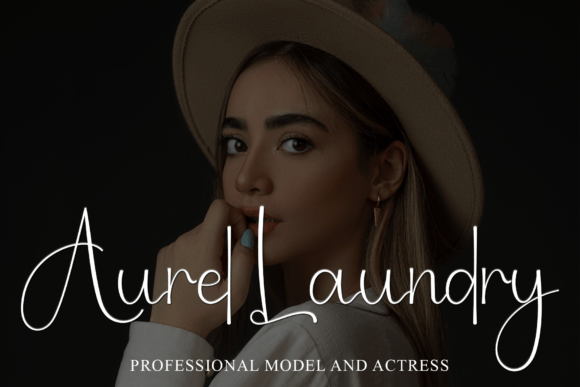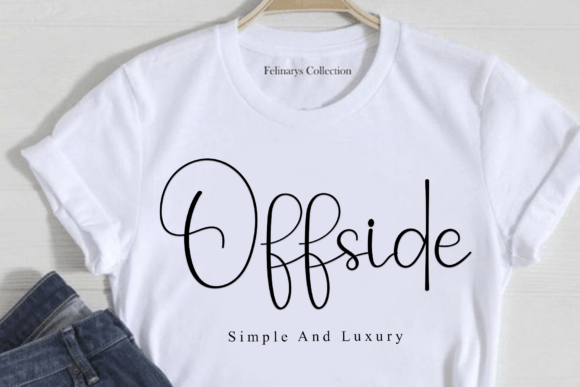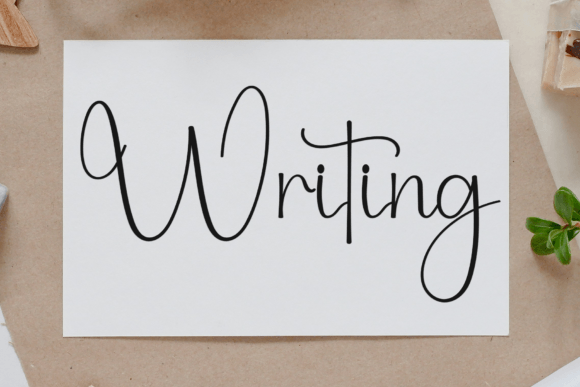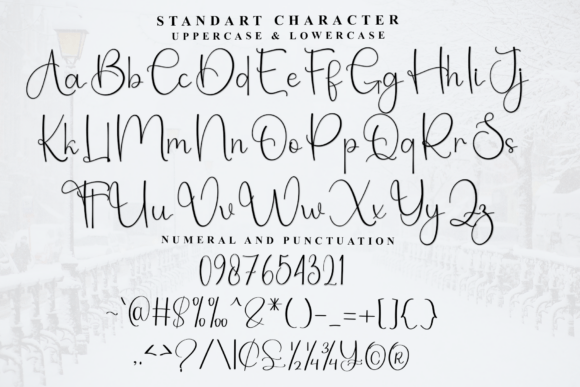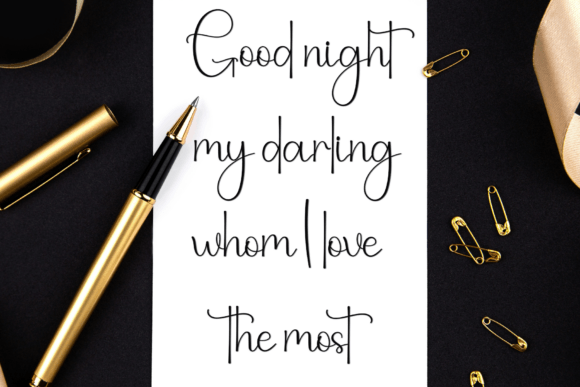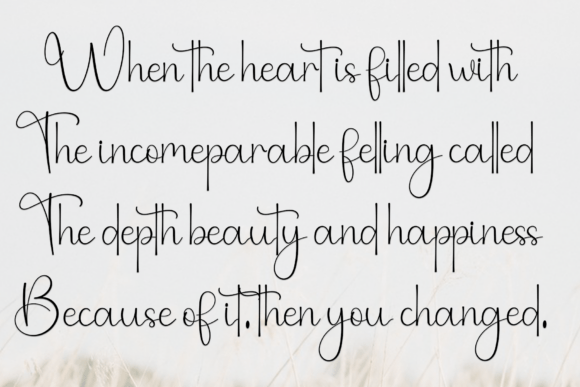
Unlock the Artistic Potential of Your Designs
Remember the moment when you stumbled upon that perfect font, and suddenly, your entire design project came together? It’s that instant spark of creativity that drives us to keep pushing the boundaries of art and design. For those seeking that special something, we introduce the Alphabet Stylish Font – a beautiful and eye-catching design element that adds a unique touch to any project.
With its soft, natural strokes and distinctive character, the Alphabet Stylish Font is perfect for designers, crafters, and artists looking to elevate their work. This versatile font is compatible with various applications, making it an ideal choice for a wide range of products, from digital designs to handmade crafts. Whether you’re a seasoned professional or a creative enthusiast, the Alphabet Stylish Font is sure to enhance your designs and captivate your audience.
- Unique Characteristics: The Alphabet Stylish Font features a unique blend of modern and vintage elements, with intricate details and ornaments that add a touch of elegance to any text.
Alphabet Stylish Font Review
I’ve had the chance to play around with the Alphabet Stylish Font, and here’s my honest take on it.
- The font is visually appealing, with a stylish flair that makes it perfect for creative projects.
- The font is highly customizable, allowing you to adjust the size, color, and style to suit your needs.
- It’s a great choice for titles, headings, and other prominent text elements.
- The font can be quite busy, which may make it difficult to read at smaller sizes.
- It may not be the best choice for body text, as it can be overwhelming and hard to follow.
- Some users may find the font too playful or immature, depending on the context.
The Alphabet Stylish Font is a great choice for creative projects that require a bit of flair and personality. While it may have some limitations, it’s a versatile and highly customizable font that can add a touch of style to your designs.
Some common use cases for Alphabet Stylish Font include:
- Creating eye-catching titles and headings
- Designing unique and stylish social media graphics
- Adding a touch of elegance to wedding invitations and other special occasion stationery
- Creating a consistent brand identity across multiple platforms